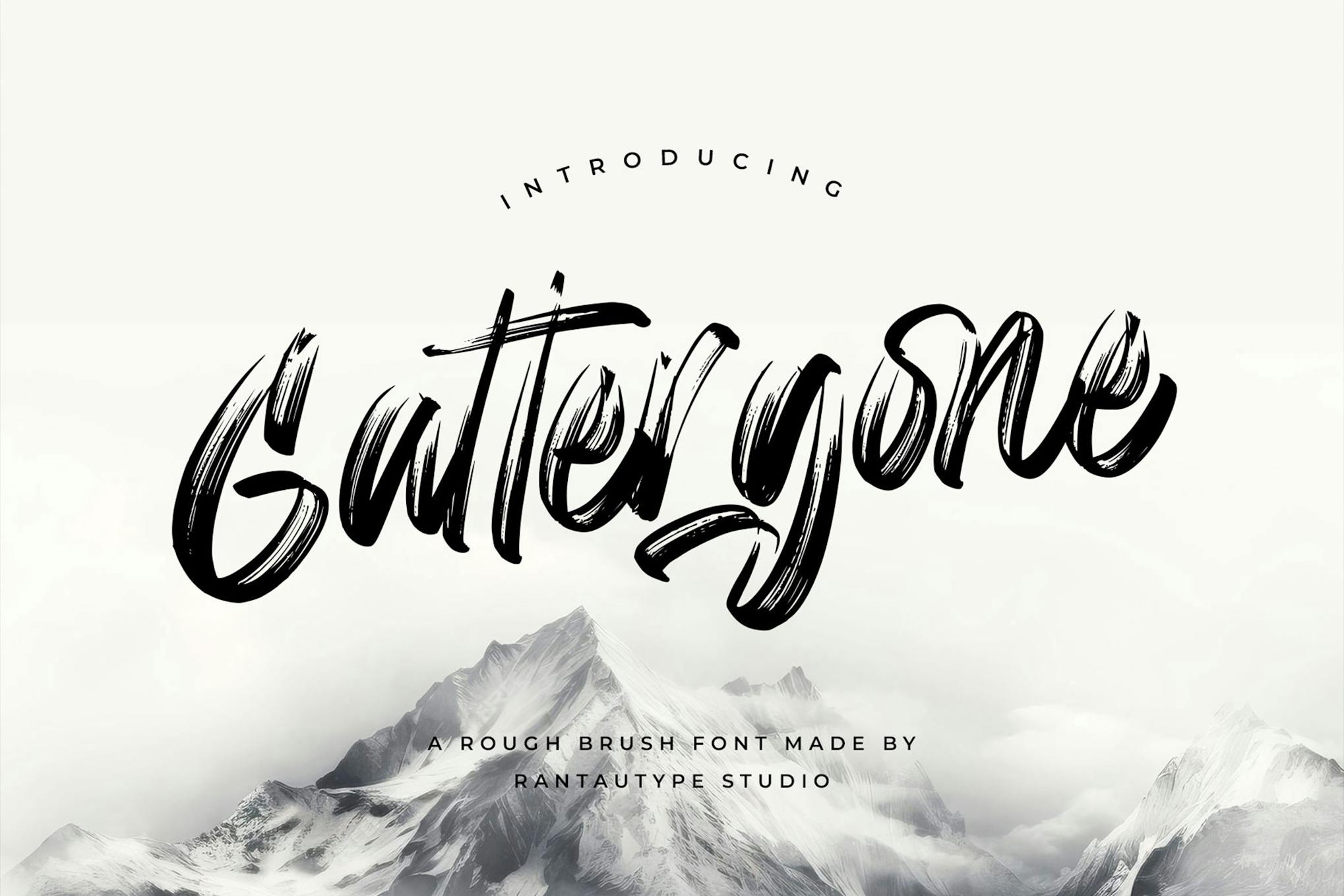
Gattergone Rough Brush Font
Gattergone Rough Brush Font Free Download is an explosive and energetic typeface that captures the raw power of a hand-painted brush. While you can download this font for free for testing purposes, for commercial use, you must purchase this font to unleash its full creative potential. This dynamic font is perfect for a wide range of creative projects, including streetwear branding, music album covers, concert posters, t-shirt designs, and social media graphics. What makes this font so exciting is its authentic, hand-painted texture and rebellious style, which instantly gives your designs an urban, edgy, and unforgettable character. The Gattergone Rough Brush font family includes a range of styles and features, such as a Regular version, a textured Bold version, and a collection of dynamic swashes and alternates, providing a complete and flexible design solution.
This isn’t just a font; it’s a statement. The design of Gattergone Rough Brush is inspired by a blend of authentic brush lettering and raw, energetic street art. Its distinctive, free-flowing letterforms and bold presence ensure that your headlines and titles will be both memorable and highly impactful. Whether you’re a designer crafting a brand identity for a modern fashion line, a creative working on a poster for a music event, or a business looking for a font that conveys a sense of rebellion and power, this typeface provides the perfect foundation. The hand-painted aesthetic adds a layer of authentic street grit that makes your work feel real, raw, and full of character.
The versatility of the Gattergone Rough Brush family is one of its greatest strengths. You can use the regular weight for a clean, graffiti feel, or the bold version for a more intense, expressive look. The included swashes and alternates allow you to customize your text and create unique typographic compositions that feel bespoke and original. This flexibility makes it an invaluable asset for designers who need to create custom content that feels both contemporary and powerful. It's a font that works hard, delivering a look that is both stylish and full of character, ensuring your designs always make a memorable impression.